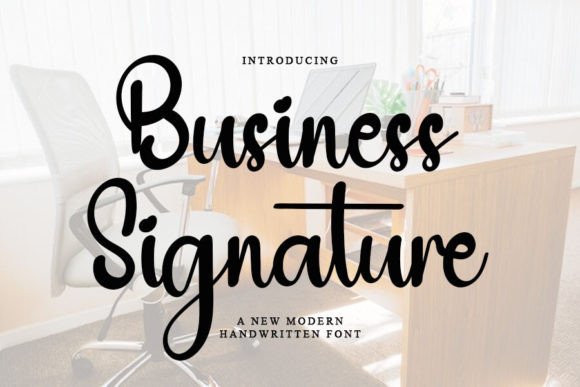
The Power of Business Signature Font: Elevate Your Designs with Elegance
Have you ever been in the middle of a design project, and suddenly, you’re stuck on finding the perfect font? I recall a recent experience where I was working on a client’s branding project, and I just couldn’t seem to find a font that captured the essence of their business. That’s when I stumbled upon the Business Signature font, and it completely transformed my design. In this article, we’ll dive into the world of Business Signature, exploring its features, and how to make the most of it in your designs.
A Personal Review: What I Love About Business Signature
Business Signature is a neat and beautiful font that exudes an elegant touch, making it perfect for a wide range of projects. Here are some things I love about it:
• ✨ Incredibly distinct and timeless style
• ✅ Elegant and sophisticated feel
• 💯 Perfect for creating spectacular designs
• 👍 Highly versatile, suitable for various design projects
While Business Signature is an excellent font, there are a few minor quirks to be aware of:
• 🤔 Limited availability of certain OpenType features in some software
• ⚠️ May not be suitable for very small font sizes due to intricate details
The Designer Inspiration Behind Business Signature
Business Signature was designed with the intention of creating a font that exudes elegance and sophistication. The designer aimed to craft a font that would be perfect for businesses looking to establish a professional and timeless brand identity. With its unique blend of classic and modern elements, Business Signature is sure to make a lasting impression.
What type of projects is Business Signature suitable for? Business Signature is a versatile font suitable for a wide range of projects, including branding, advertising, editorial, and more.
Does Business Signature support OpenType features? Yes, Business Signature supports OpenType features, including glyphs and stylistic alternates, which can be accessed in compatible software.